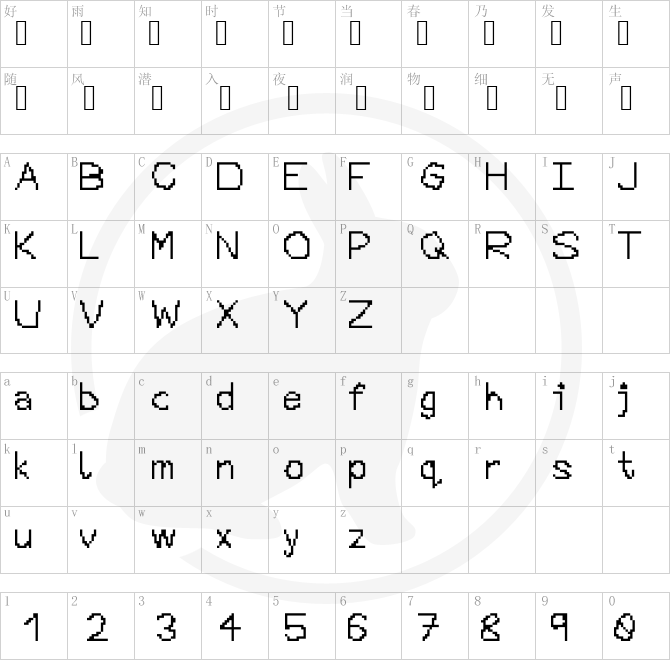
- Font Name:Tairo
Tairo.ttf is a very beautiful artistic font, Tairo.ttf is widely used in the design and printing of various books and pictures,Tairo.ttf has a strong visual impact,Tairo.ttf is a commonly used font in newspapers, magazines and books, and is used in posters, e-commerce Poster design, store design, logo design, font design and other fields.Tairo.